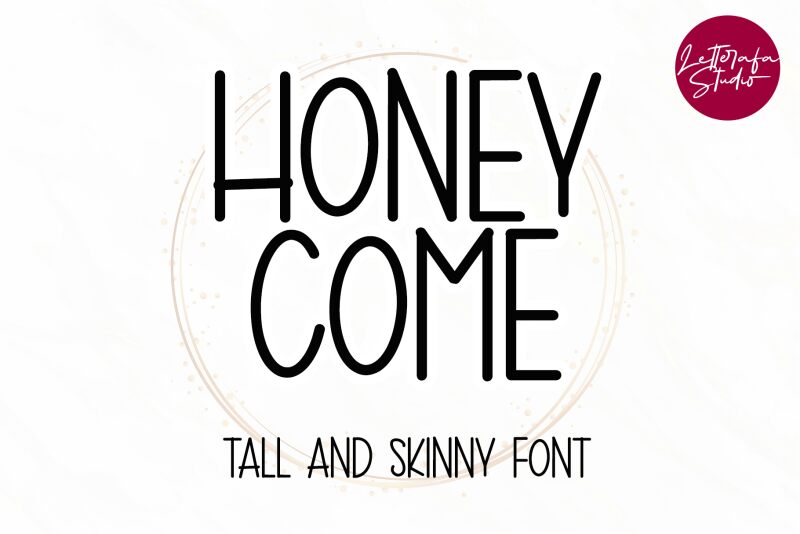
Honeycome, crafted by Letterafa Studio, exudes a unique blend of personal touch and refined simplicity. This semi-light and condensed handwritten font carries an aesthetic finesse that balances casual charm with elegant restraint. Its slender yet expressive strokes suggest versatility, making it an impeccable choice for designs requiring both intimacy and clarity.
The flowing connectivity between letters in Honeycome adds a seamless continuity to text, reminiscent of classic cursive with a modern twist. Its condensed width makes it an excellent fit for space-conscious projects without compromising legibility. Whether gracing the pages of bespoke invitations or adding character to branding materials, Honeycome is poised to infuse your creative endeavors with its distinctively stylish flair.